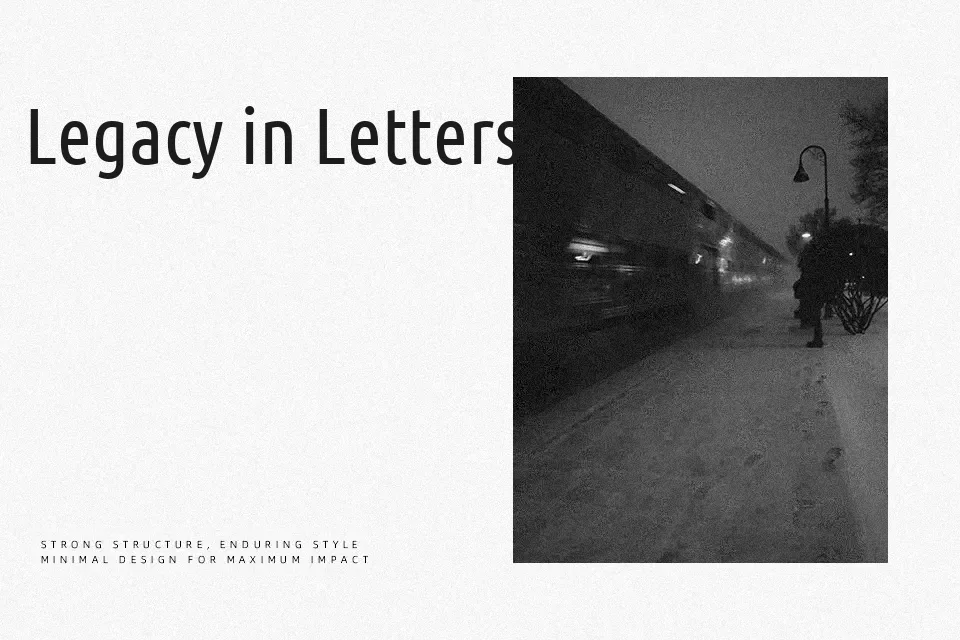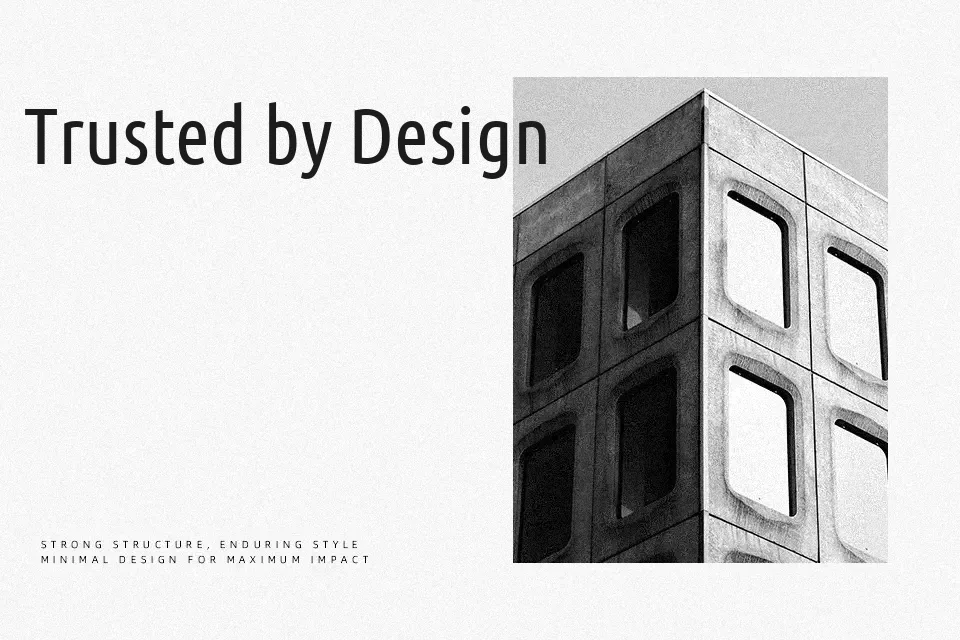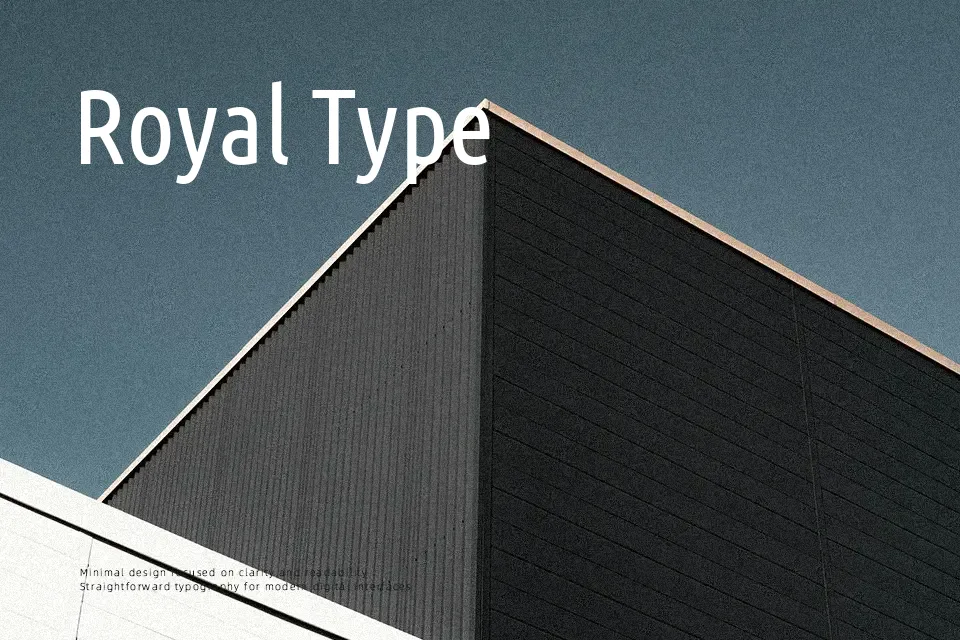
Ubuntu Condensed Font
Ubuntu Condensed is a single-weight sans serif with tall x-height, narrow proportions, and generous open counters that keep text legible even when space is tight. Its strokes feel steady and uniform rather than flashy, giving it a calm, utilitarian tone that works in interfaces, navigation labels, and dense data layouts more than in expressive wordmarks. On screen it reads cleanly at small and medium sizes, but the lack of additional weights, italics, or decorative features can be limiting for complex branding systems or editorial typography that relies heavily on hierarchy and contrast. If you like the general feel of Ubuntu Sans but need something slimmer for constrained columns or sidebars, this cut is a practical option.
UI navigation labels and menus in tight layouts
Data-heavy dashboards and tables where space is constrained
Headings and sidebars in web apps that echo the Ubuntu look
Brand systems that require multiple weights and italics
Large editorial layouts that need strong typographic contrast
Highly expressive logotypes or decorative wordmarks )
Perfect for advertising, body text, and headline, with a clean and condensed style.